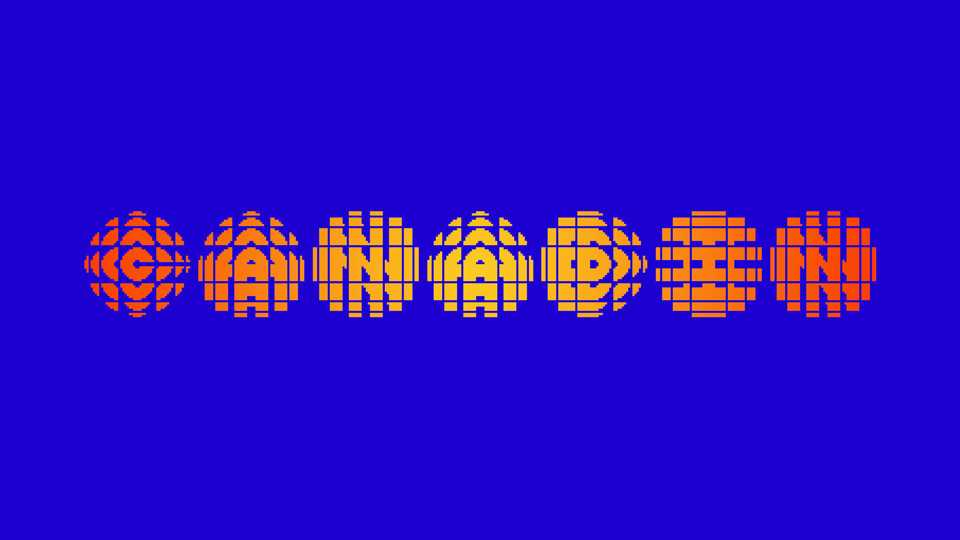
Download Canadin font, a display typeface inspired by the legendary 1974 CBC “Exploding Pizza”/”Gem” logo designed by the Burton Kramer. Canadin font reflects the rebellious spirit and innovative approach of Kramer’s legendary logo.